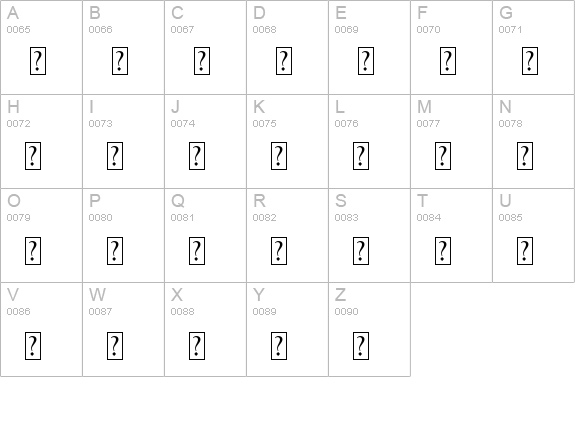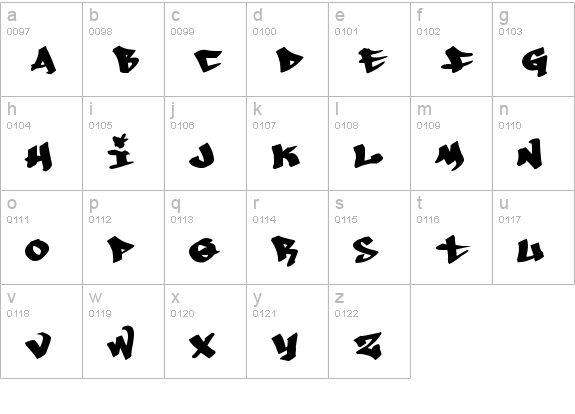
Whoa! Font Details
Introducing the stunning and eye-catching Whoa! font, a bold and dynamic typeface that will leave a lasting impression on any design project. With its unique and playful style, Whoa! font is perfect for adding a touch of excitement and personality to your creations. This font is not only visually captivating, but it also offers a great deal of versatility. Whether you're working on a logo, a poster, or a website, Whoa! font will effortlessly convey your message with its bold and captivating letterforms. Not only does Whoa! font deliver on style, but it also offers convenience. This font is freely available to download at FontsMarket.com, allowing you to seamlessly incorporate it into your design projects without any hassle or cost. The bold and attention-grabbing nature of Whoa! font is sure to make your designs stand out from the crowd. Its unique and energetic letterforms will draw the viewer's eye and create a memorable visual experience. So why wait? Download Whoa! font today from FontsMarket.com and unleash its free-spirited and captivating charm in your next design endeavor. Let the Whoa! font take your creations to the next level and leave a lasting impression on your audience.